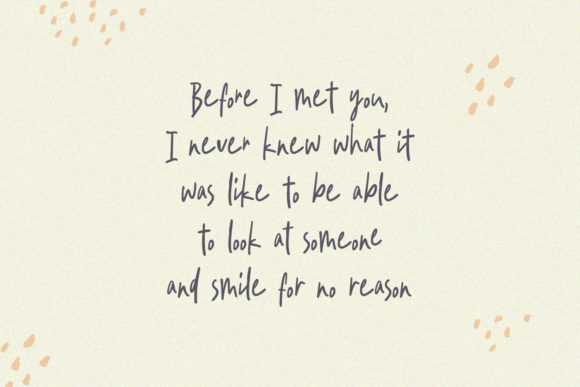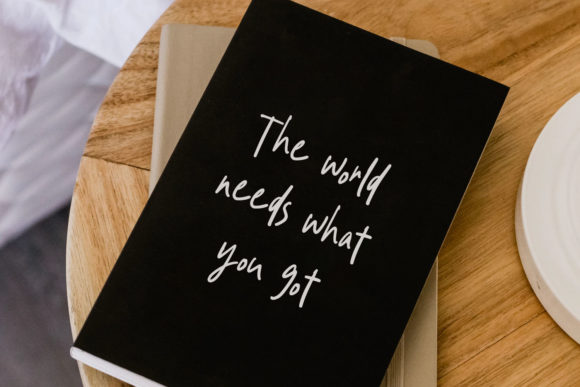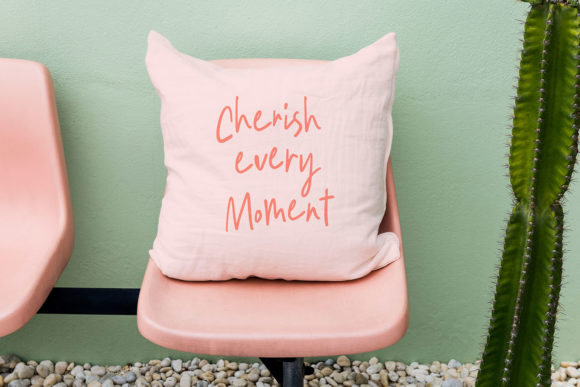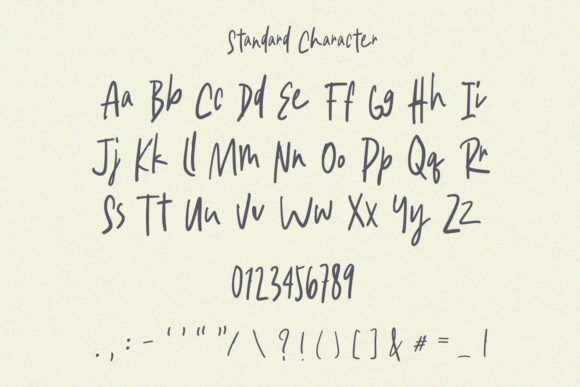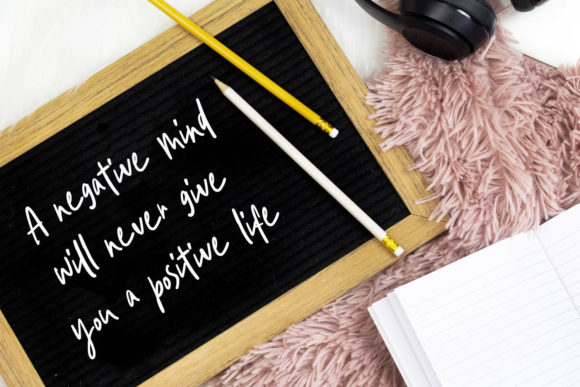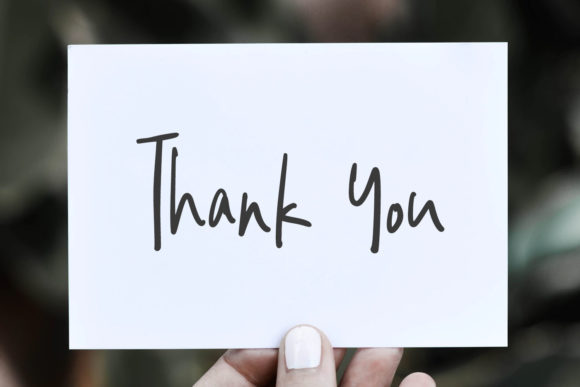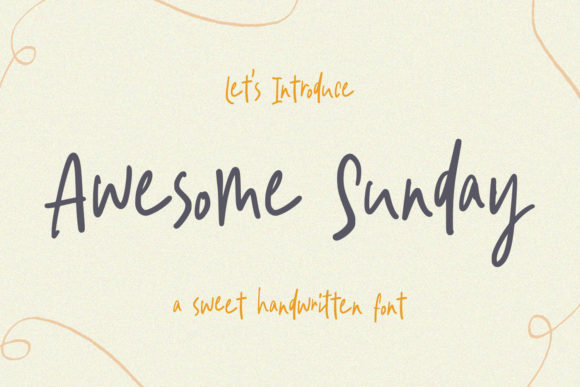
Introducing Awesome Sunday Font: The Ultimate Delight for Designers and Crafters
Are you on the hunt for a font that adds a touch of cuteness and elegance to your designs? Look no further than the Awesome Sunday Font! This lovely and delicate script font is specifically crafted to provide a beautiful and refreshing look to your creative projects. Whether you’re a designer, crafter, or DIY enthusiast, Awesome Sunday is the perfect addition to your font collection.
What Makes Awesome Sunday Font So Special?
Awesome Sunday Font is more than just a pretty face. Its unique characteristics make it an ideal choice for a wide range of design applications. Here are just a few reasons why you’ll love this font:
• Cute and Delicate: Awesome Sunday Font exudes cuteness and delicacy, making it perfect for designs that require a touch of whimsy and playfulness.
• Beautiful and Refreshing: This font is designed to add a fresh and beautiful look to your designs, making it ideal for projects that require a bit of elegance and sophistication.
• PUA Encoded: Awesome Sunday Font is PUA (Private Use Area) encoded, which means you can access all of the glyphs and swashes with ease. This feature makes it simple to use and customize the font to suit your design needs.
Uses for Awesome Sunday Font
Awesome Sunday Font is incredibly versatile and can be used for a wide range of design applications, including:
• Digital Design: Use Awesome Sunday Font to add a touch of elegance and sophistication to your digital designs, such as social media graphics, blog posts, and website headers.
• Print Design: This font is perfect for print design projects, such as business cards, brochures, and flyers.
• Crafting and Scrapbooking: Awesome Sunday Font is a great addition to your crafting and scrapbooking supplies. Use it to add a personal touch to your DIY projects, such as handmade cards and journal pages.
Tips for Using Awesome Sunday Font
To get the most out of Awesome Sunday Font, here are a few tips to keep in mind:
• Pair it with Other Fonts: Combine Awesome Sunday Font with other fonts to create a unique and visually appealing design. Try pairing it with a bold font for a striking contrast.
• Experiment with Colors: Don’t be afraid to experiment with different colors and textures to add depth and interest to your design.
• Use it Sparingly: While Awesome Sunday Font is beautiful and elegant, it can be overwhelming if used too much. Use it sparingly to create a focal point in your design.
Awesome Sunday Font is a lovely and delicate script font that is sure to delight designers and crafters alike. Its unique characteristics, versatility, and PUA encoding make it an ideal choice for a wide range of design applications. Whether you’re looking to add a touch of elegance and sophistication to your digital designs or a personal touch to your crafting and scrapbooking projects, Awesome Sunday Font is the perfect addition to your font collection.